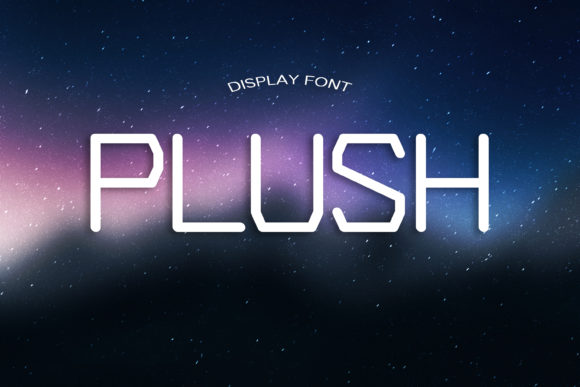
Welcome to the world of Plush Font, a display font family that will captivate your senses and ignite your creativity. Step into a realm where blocky sans serif letters dance across the page, transforming your designs into masterpieces.
Plush Font was meticulously crafted by the talented dmytroyarish, a visionary designer with an eye for detail. His passion for typography shines through in every curve and angle of this extraordinary font. With Plush Font, you'll discover a symphony of characters that play harmoniously together, creating a visual spectacle that leaves a lasting impression.
This remarkable font family boasts a wide range of styles, each with its own distinct personality. From the bold and assertive Regular to the delicate and graceful Light, Plush Font offers endless possibilities for creative expression. Whether you're designing logos, posters, invitations, or social media graphics, Plush Font will elevate your work to new heights.
Dive into the depths of Plush Font's character set and discover a treasure trove of typographic wonders. Flourishes, swashes, and ligatures intertwine seamlessly, adding a touch of elegance and sophistication to your designs. With Plush Font, you'll have the power to create captivating headlines that demand attention and body text that flows effortlessly, captivating your audience with every word.
Unleash your imagination and explore the boundless potential of Plush Font. Its versatility extends far beyond the digital realm. Bring your designs to life in print, on billboards, or even on merchandise. Plush Font will make a statement wherever it appears, leaving an indelible mark on the minds of your audience.
With Plush Font, you're not just downloading a font; you're embarking on a creative journey. Transform your designs into works of art, captivate your audience with your words, and leave a lasting legacy of visual excellence. Experience the magic of Plush Font today and redefine the boundaries of creativity.